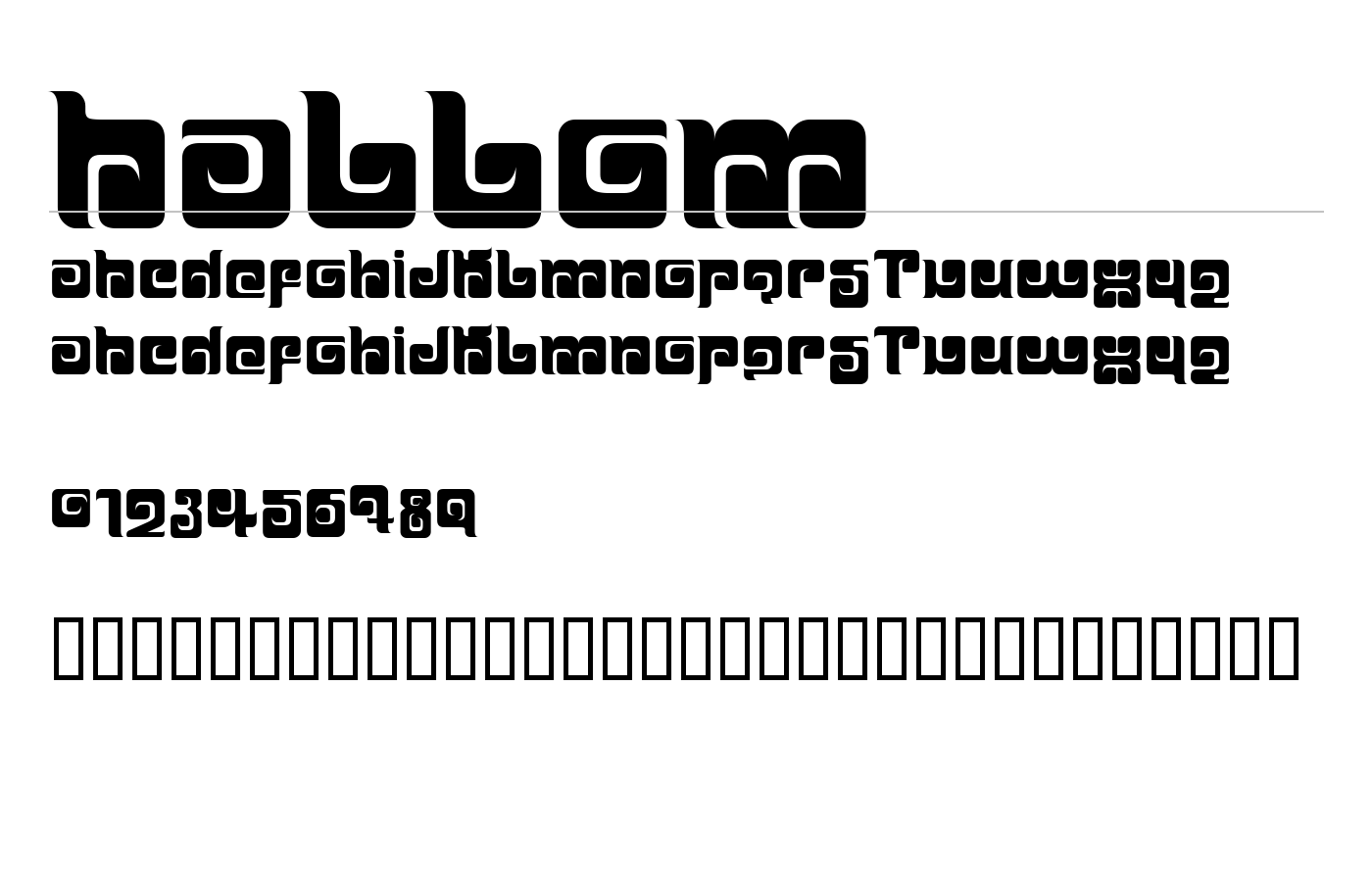
Ballom is a bold, geometric display font featuring thick, blocky letterforms with a high x-height and rounded corners, creating a futuristic and playful look. Its tightly spaced, almost modular shapes offer a strong visual impact, making it ideal for attention-grabbing headlines, logos, and creative branding projects that seek a modern yet approachable vibe. This font works best in large sizes where its unique and quirky character details can shine.
BALLOM Font